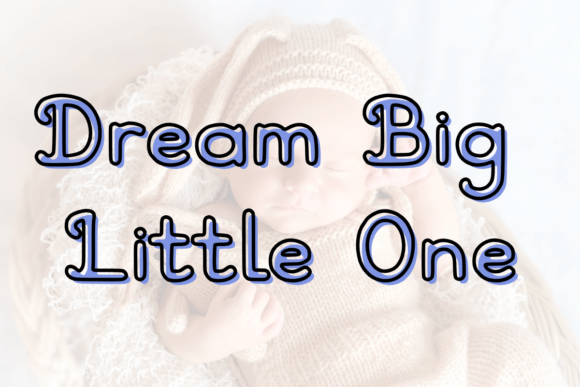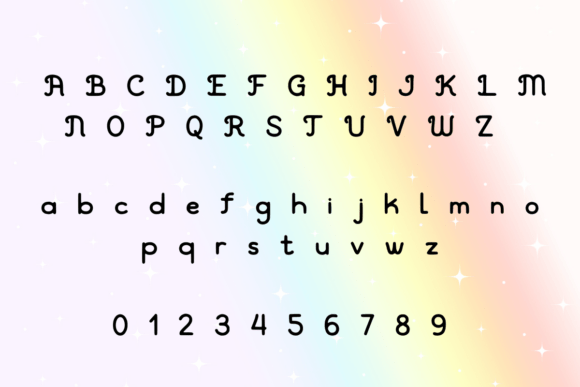
Introduction to Dream Whimsy Font
As a designer, have you ever found yourself scribbling down ideas in a journal, only to realize that the perfect font was missing? The words danced in your head, but on paper, they lacked the whimsy and charm you envisioned. This is where the Dream Whimsy Font comes in – a game-changing design resource that adds a touch of sweetness and imagination to any creative project.
With its light, airy strokes and playful charm, the Dream Whimsy Font is perfect for a wide range of designs, from nursery prints and baby shower invitations to children’s books and scrapbooking. Its high-quality design ensures that your projects stand out, whether you’re working with a transparent background or a solid one. And the best part? This versatile font is fully compatible with popular design platforms, making it easy to incorporate into your workflow.
Key Features of Dream Whimsy Font
- High-quality vector design ideal for creative projects, such as digital art, web design, and print materials.
- Unique, whimsical design style that adds a touch of magic to your creative projects, perfect for fantasy, fairy tale, or children’s book themes.
Honest Review: Dream Whimsy Font
I recently had the opportunity to work with the Dream Whimsy Font, and I must say it’s been a delightful experience. As a designer, I’m always on the lookout for high-quality design resources that can elevate my creative projects. The Dream Whimsy Font definitely fits the bill.
What works well: ✨ The font is incredibly versatile and can be used for a wide range of projects, from children’s books to wedding invitations. It’s also available for free download, which is a huge plus. The transparent background makes it easy to use on various backgrounds and designs.
Overall, I’m thoroughly impressed with the Dream Whimsy Font. It’s a great addition to any designer’s toolkit, and I’m excited to see how it can be used in future projects.
Tips for Getting the Most Out of Dream Whimsy Font
Experiment with different font sizes, colors, and combinations to achieve a unique look. Use the transparent background feature to create visually appealing designs.
The Dream Whimsy Font is ideal for a wide range of creative projects, including social media graphics, presentations, posters, and more. It’s also a great design resource for personal and professional projects.